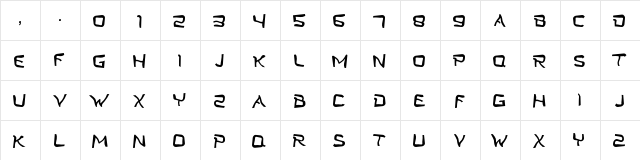
Twist Star Type Regular
| Foundry | Atjcloth |
| Designer | Atjcloth |
Design Context for Twist Star Type Typeface
Twist Star Type is a composed and adaptable typeface that performs quietly and consistently across a wide range of design contexts.